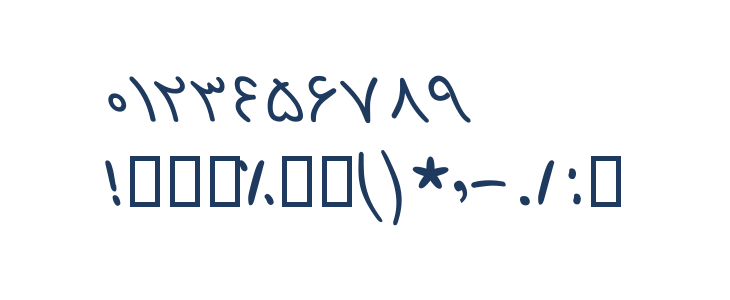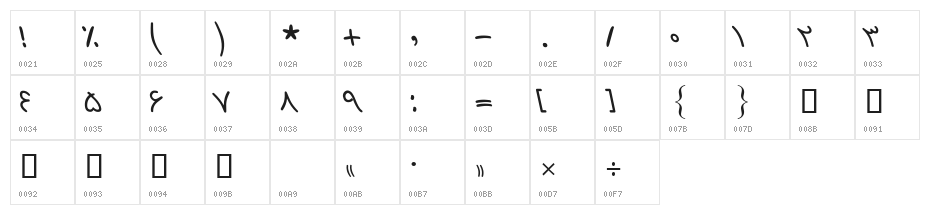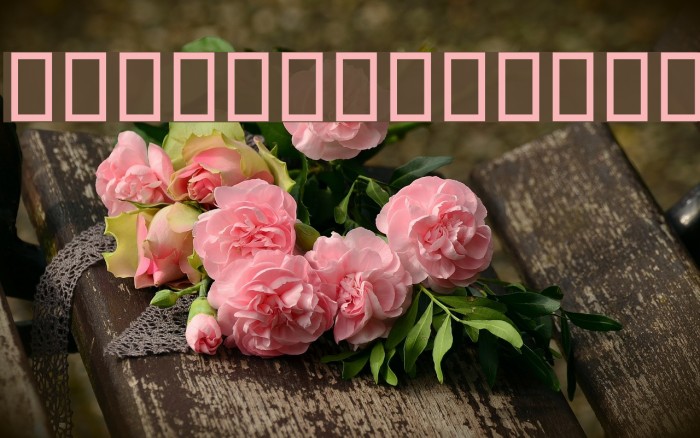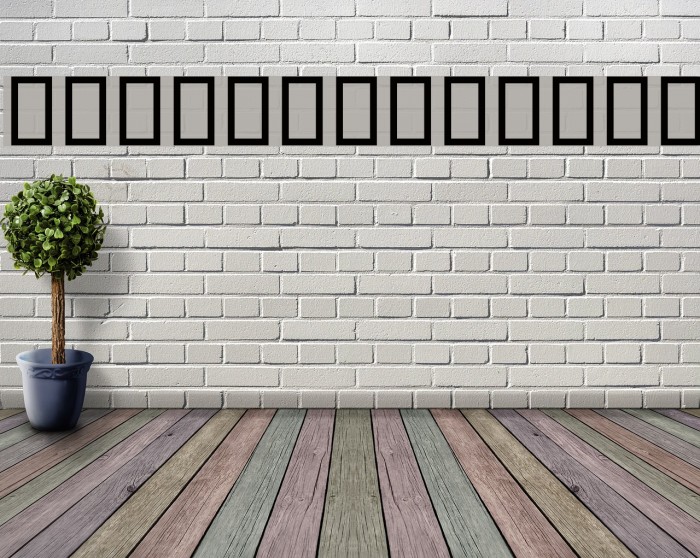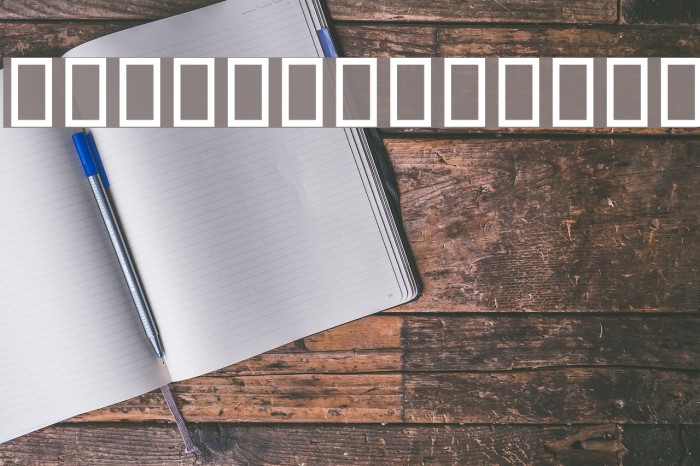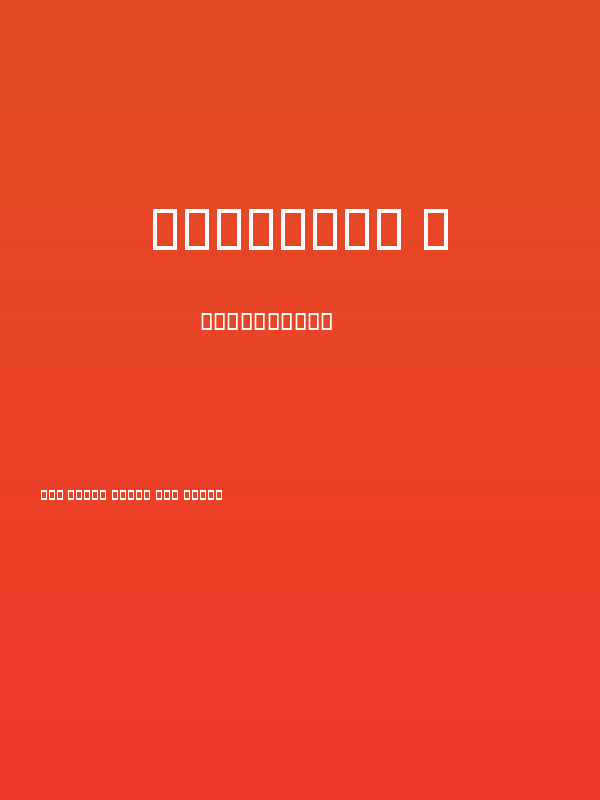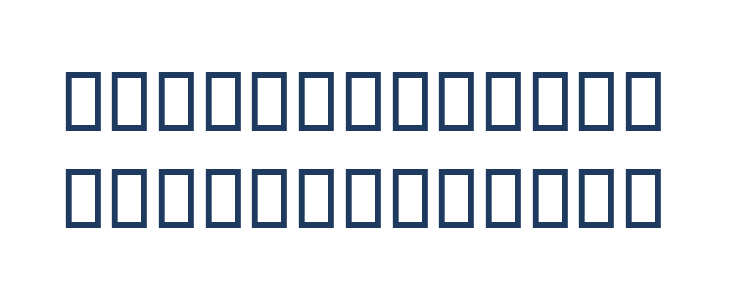
Destkhat V Font
Destkhat V Description
This font features a unique and artistic design with a handwritten style. The characters are fluid and slightly irregular, giving them a personal and informal appearance. The numbers and special characters maintain the same whimsical style, adding to the overall playful aesthetic. This font is ideal for projects that require a touch of creativity and individuality, such as personal invitations, artistic posters, or branding materials that aim to convey a sense of uniqueness and approachability.
| Use Case | Logos, Artistic projects, Invitations |
| Proposed Projects | Ideal for personal invitations, artistic posters, and creative branding materials. |